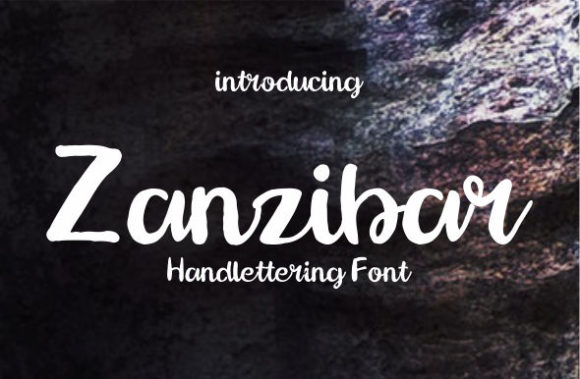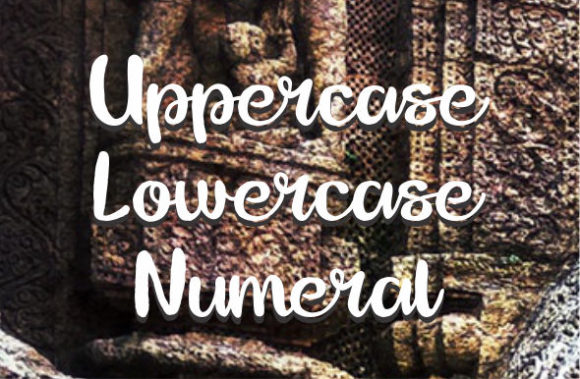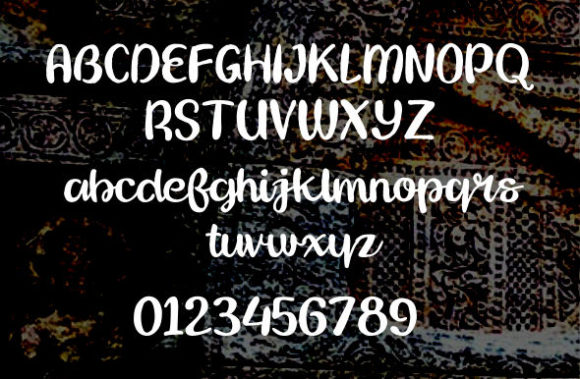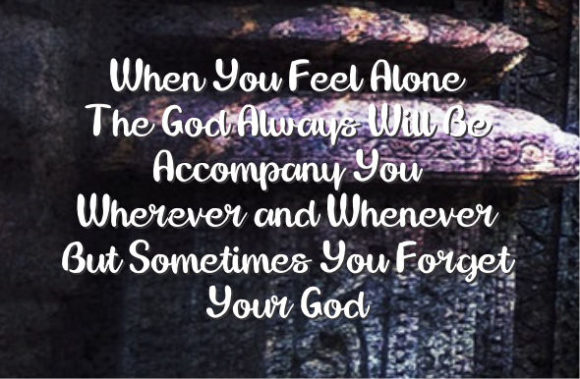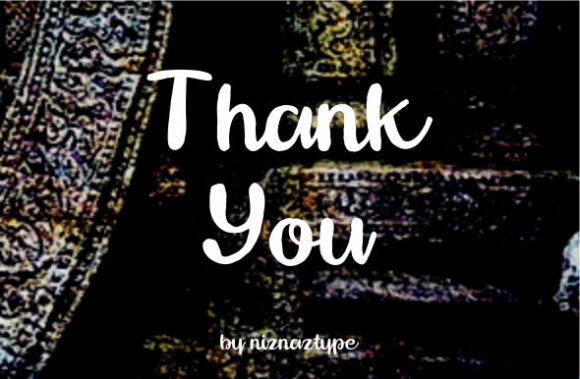
Zanzibar Font
About Zanzibar Font
Zanzibar is a casual, fun handwritten font. Clean and a little bit quirky, this font is the perfect fit for all of your logos, branding, social media, and crafty DIY projects.